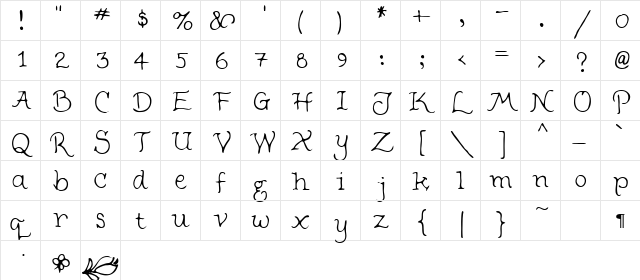
Informal Regular
Design Context for Informal Typeface
Informal takes a measured approach to typography — its balanced proportions and neutral character make it a reliable workhorse for both digital and print work.